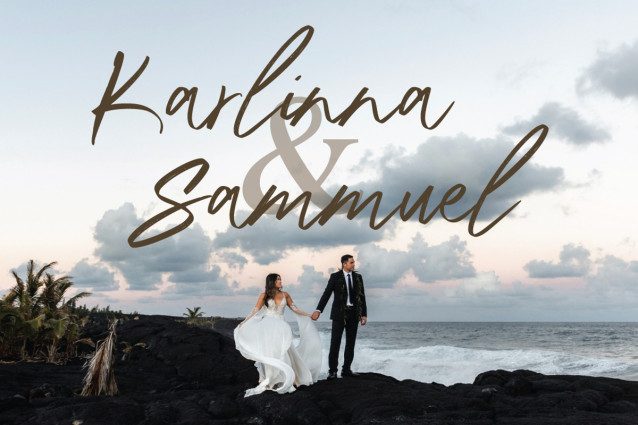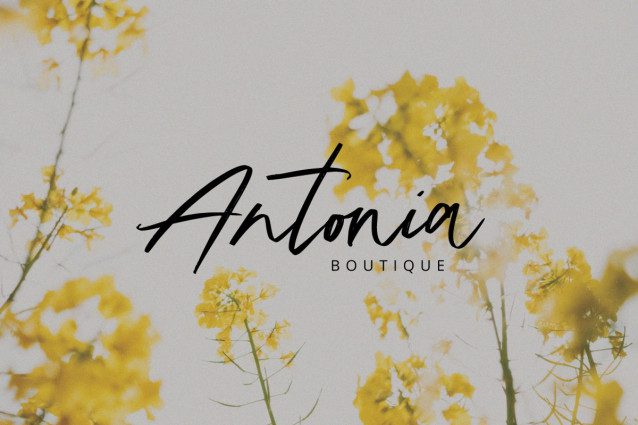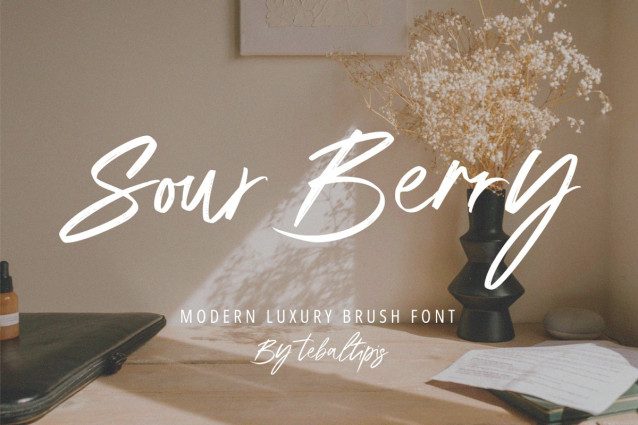
Sour Berry Handwriting Font
Sour Berry Handwriting Font a handmade Signature style, decorative characters and a dancing baseline!Sour Berry with 130+ glyphs. The alternative characters were divided into several Open Type features such as Swash, Stylistic Sets, Stylistic Alternates, and Ligature. The Open Type features can be accessed by using Open Type savvy programs such as Adobe Illustrator, Adobe InDesign, Adobe Photoshop Corel Draw X version, And Microsoft Word. And this Font has given PUA unicode (specially coded fonts). so that all the alternate characters can easily be accessed in full by a craftsman or designer.